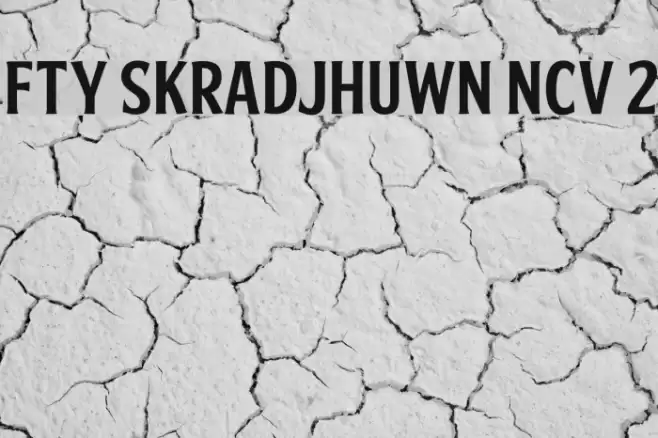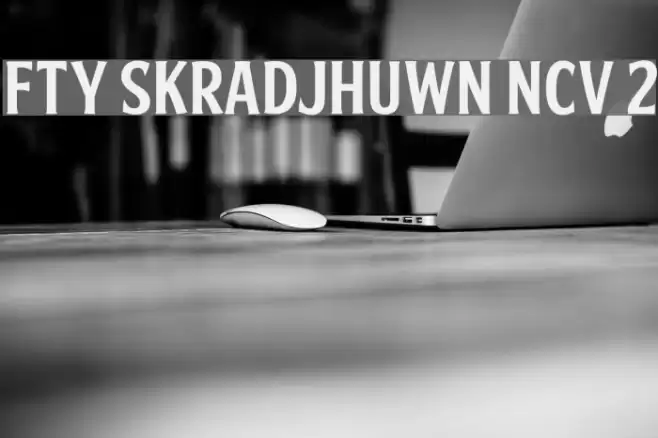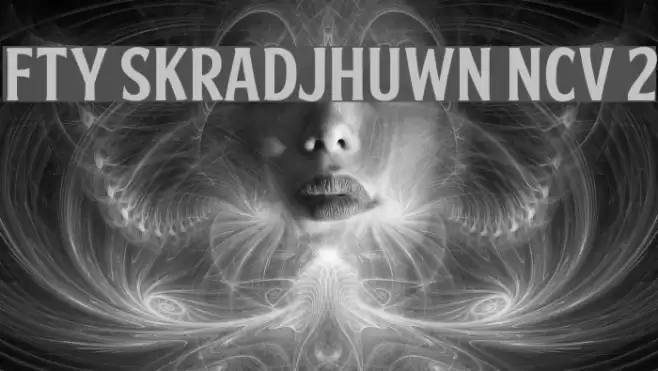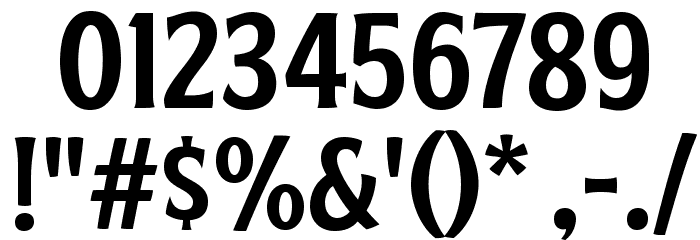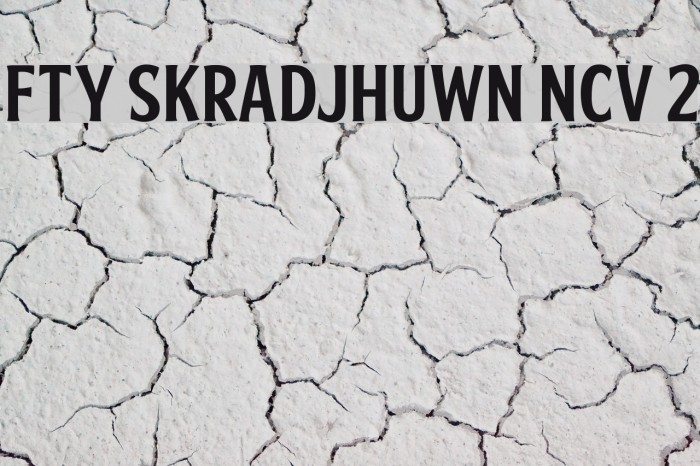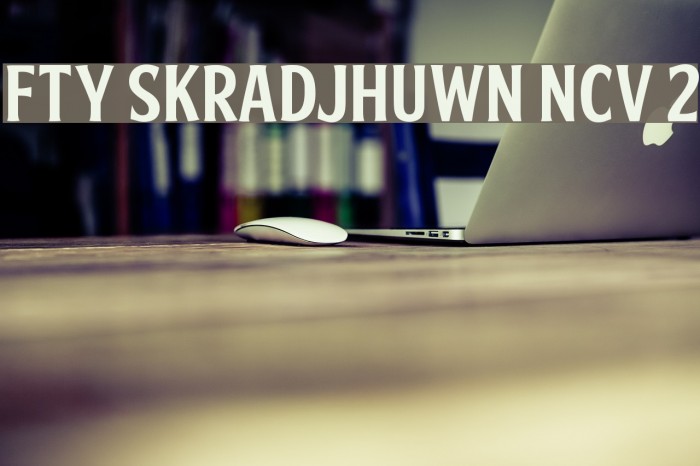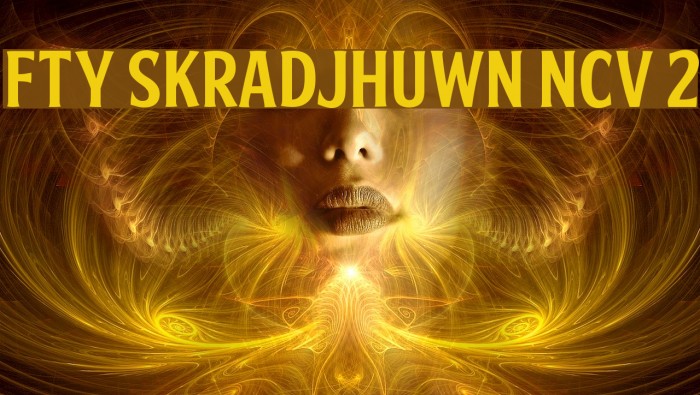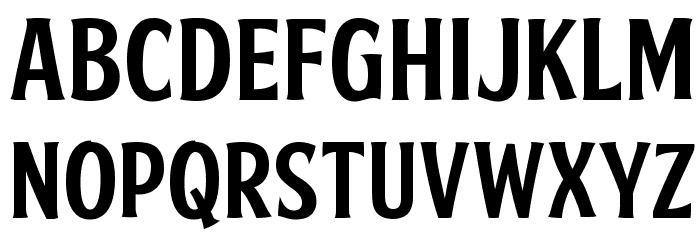
FTY SKRADJHUWN NCV 2 Font
FTY SKRADJHUWN NCV 2 Description
This font features bold, thick strokes with a strong presence, making it highly legible and impactful. The characters are designed with a slight curvature, giving them a dynamic and energetic feel. The uppercase letters are robust and commanding, while the lowercase letters maintain a consistent weight, ensuring readability across various sizes. The numerals are clear and distinct, complementing the overall bold aesthetic. Special characters are crafted with precision, maintaining the font's cohesive style. This font is ideal for projects that require a strong visual impact.
A bold, impactful font with thick strokes and dynamic curvature from Uncategorized fonts.
- Proposed Projects: Ideal for headlines, posters, branding, and advertising materials where a strong visual impact is needed.